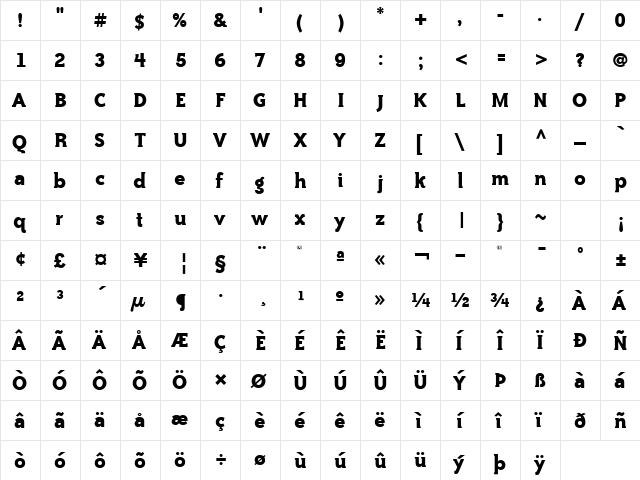
BaileyQuadITC Bold
Design Context for BaileyQuadITC Typeface
BaileyQuadITC offers clean, dependable letterforms without strong stylistic allegiance, making it a practical choice for designers who need flexibility. Its bold stroke weight gives it real presence on the page.